Pick a winning font for your brand with this infographic
Nail your brand typography choices with this helpful infographic.
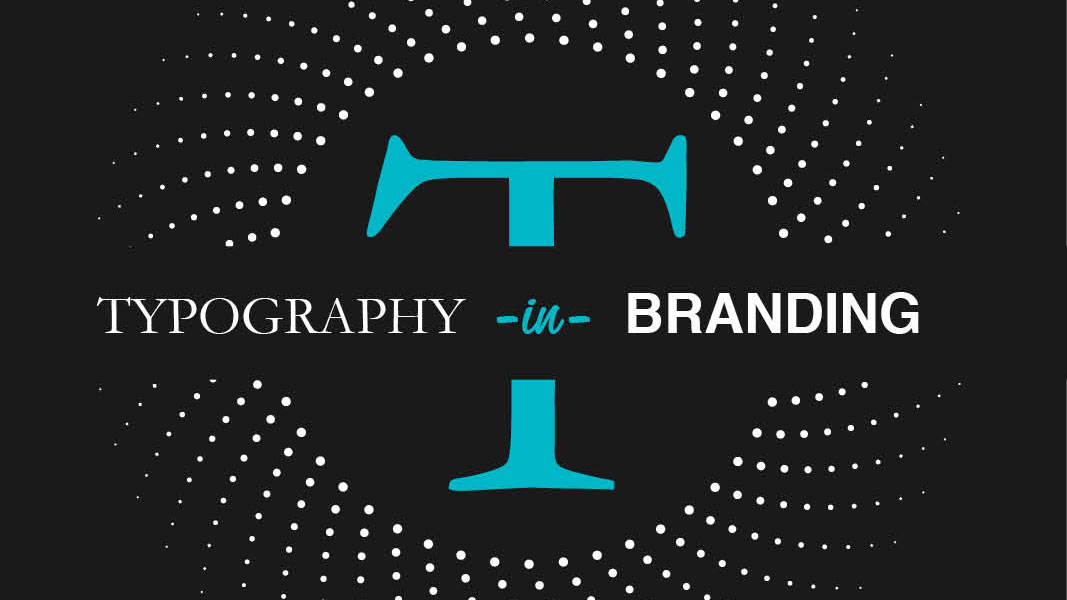
Branding is more than just a snappy slogan or clever logo – it's how customers connect with your service across all sorts of platforms. And designers who specialise in creating memorable brands have plenty of tricks up their sleeves to make people respond to a company in certain ways.
We've already seen how colours can influence the ways people perceive a brand, thanks to this useful infographic that helps you pick the perfect palette. Now the new Typography in Branding infographic from cohesive brand creators Iconic Fox is here to show you how typography is a design decision that needs careful consideration.
By breaking typography choices down into three main styles – namely serif, sans-serif and script – this infographic reveals how the different typefaces have been used by brands over the years. Each style is also introduced with a series of characteristics and popular associations to inform readers of how they’re best applied.
For example, serif fonts are linked to tradition and reliability, so they’re well suited to print media brands, it says.
On top of this, the infographic also takes us on a trip through time. Every typeface is split into key time periods that help to give some context as to why particular styles have produced certain associations.
To use our old friend, serif typefaces, we see that the style can trace its roots all the way back to 1460 where it has a strong link to calligraphy. Perhaps this set the foundation for the typeface genre becoming the respectable style we feel it to be today?